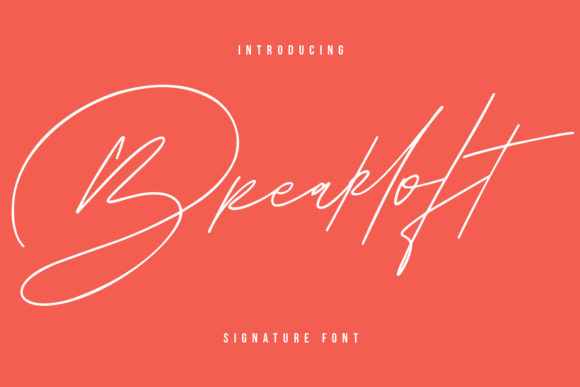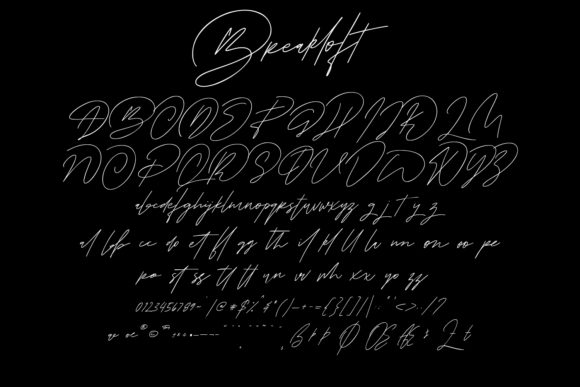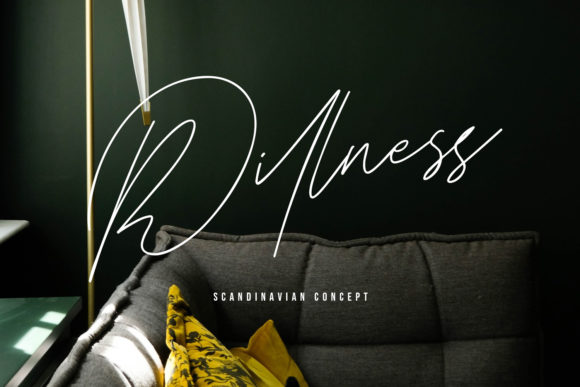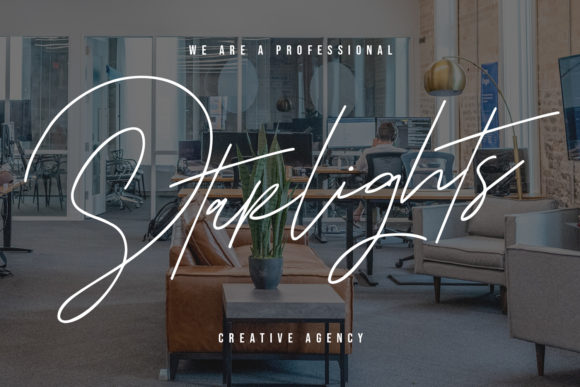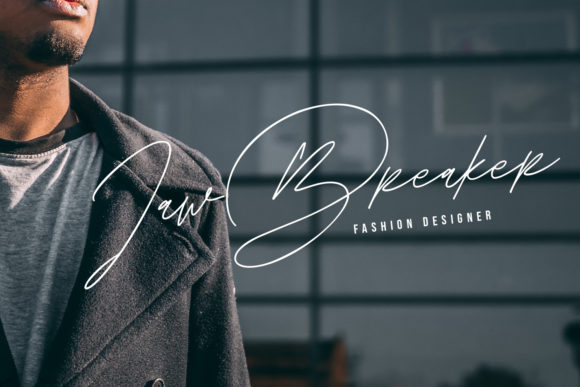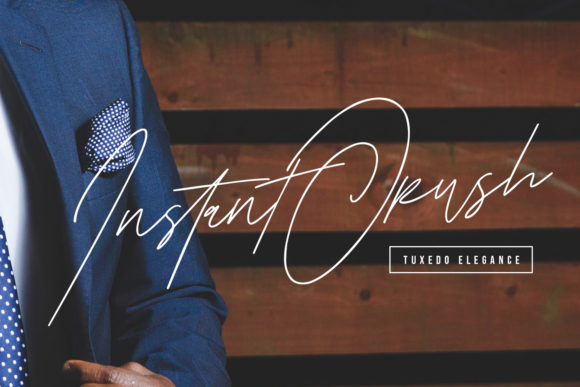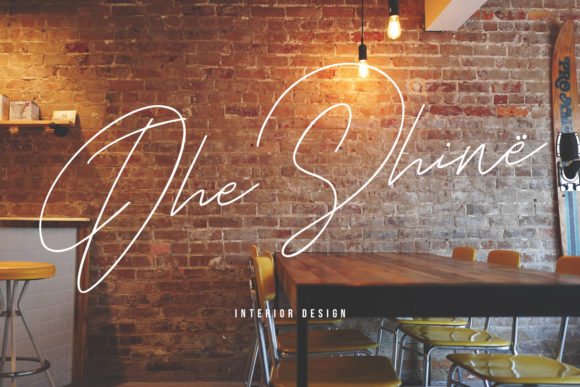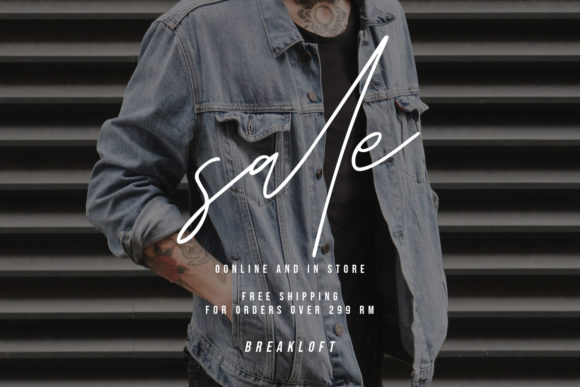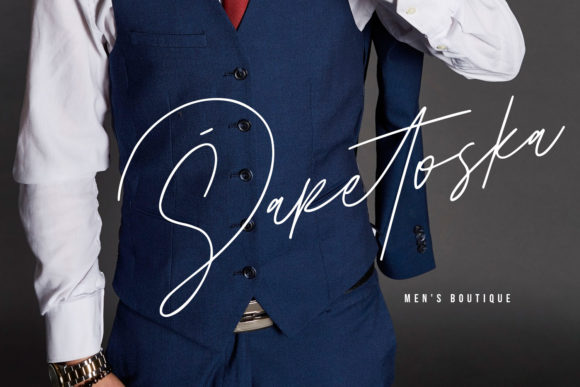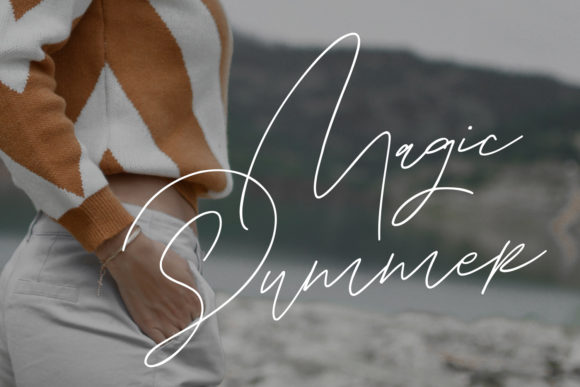
Breakloft Font
About Breakloft Font
Breakloft is a sweet, soft hand-lettered handwritten font. In addition to its well-balanced weight distribution, it delivers a sophisticated look which is further emphasized by the carefully adjusted alternates and ligatures!